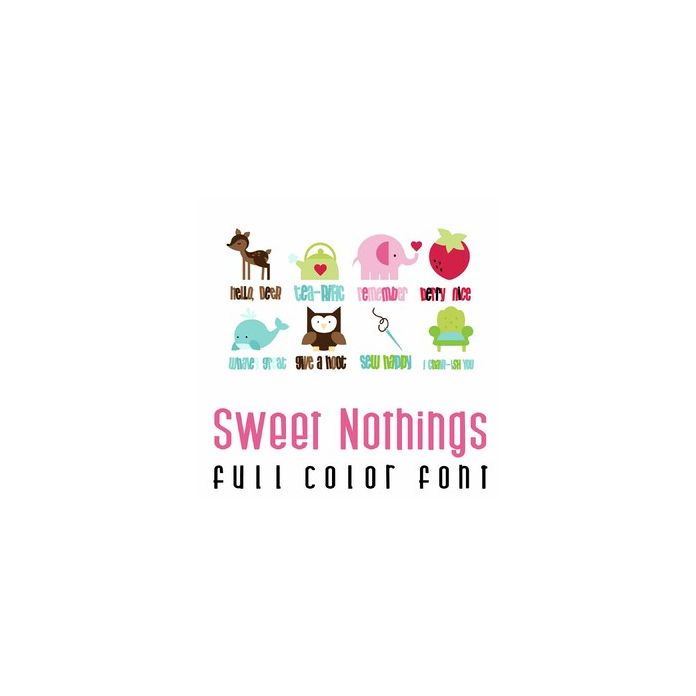
This adorable full-color doodlebat font features 60 images and puns perfect for Valentine's Day. Perfect for cards, crafts, gifts, decor, scrapbook pages, planner stickers, and more!